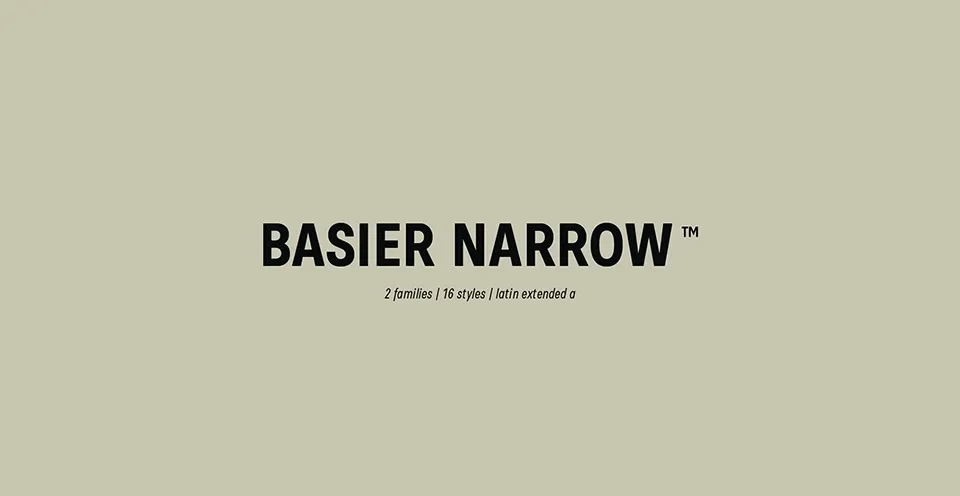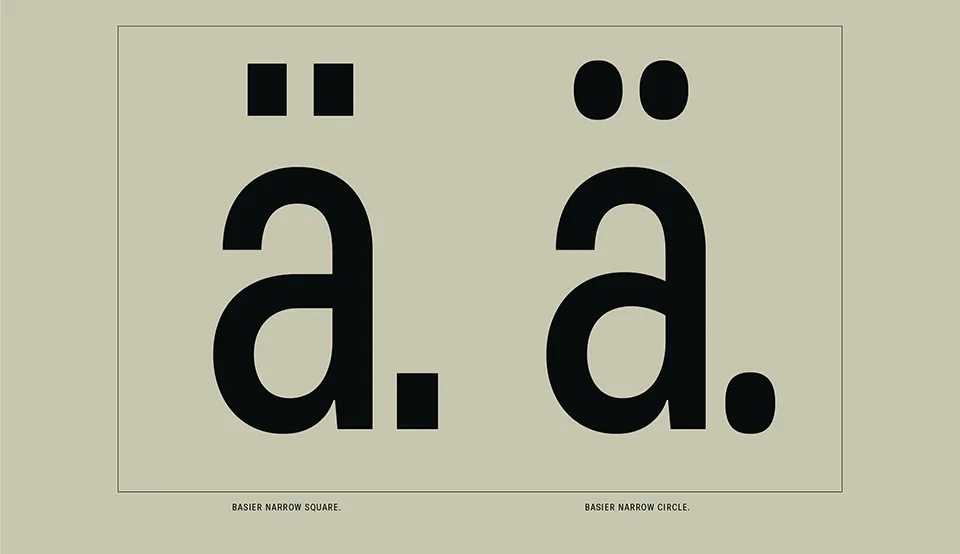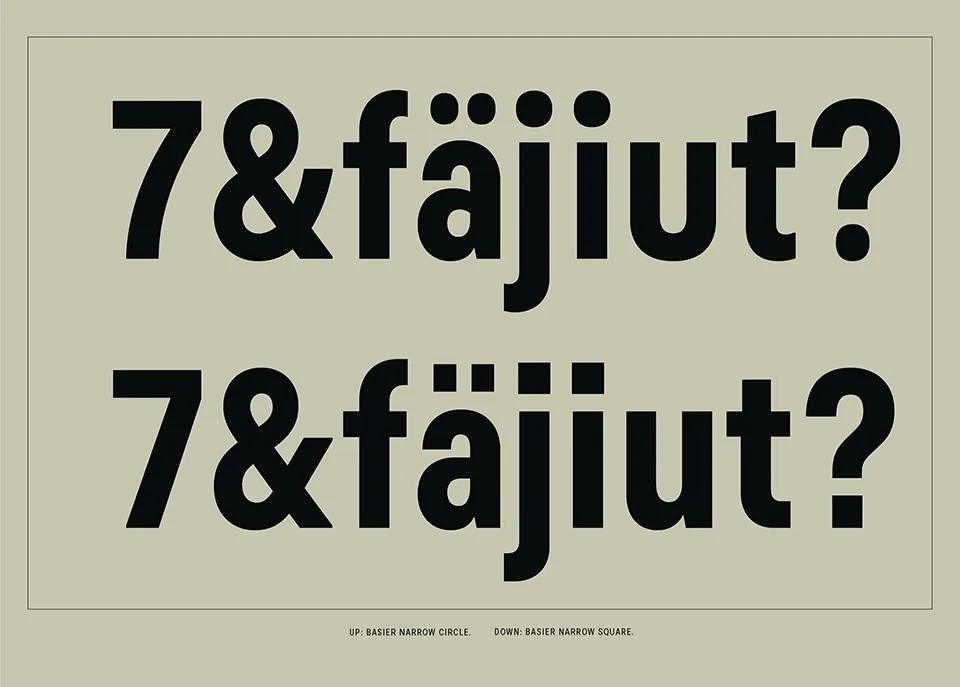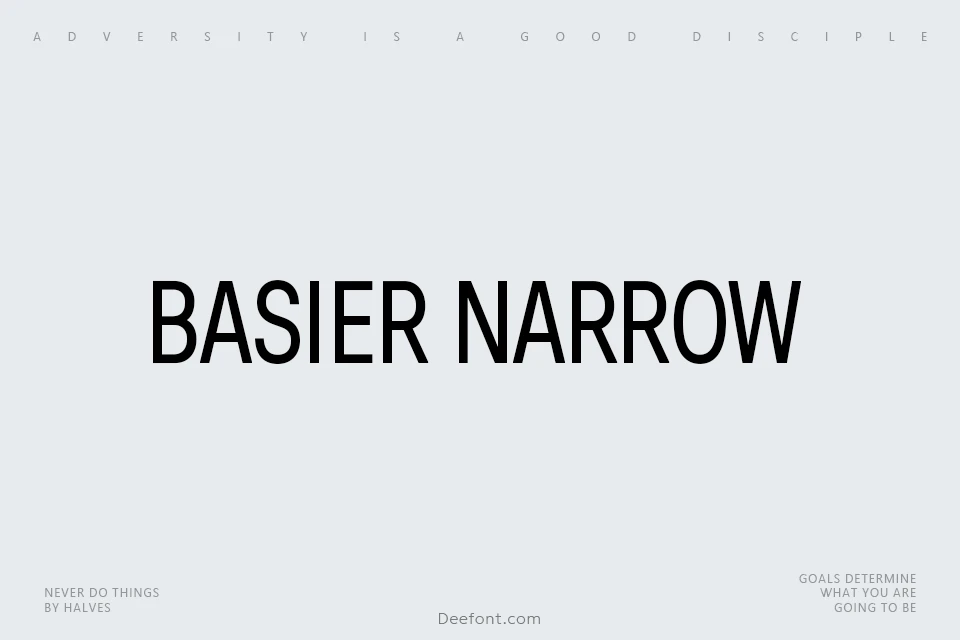
Basier Narrow Font
Basier Narrow Font is a modern, geometric sans-serif font family inspired by vintage album covers and the International Style. As a condensed version of the best-selling Basier font, it features clean, neutral lines and is ideally suited for logotypes, branding, editorial design, as well as web and screen design. The typeface offers extensive language support, stylistic alternates, and advanced numeric typography features, making it a versatile choice for contemporary design projects.